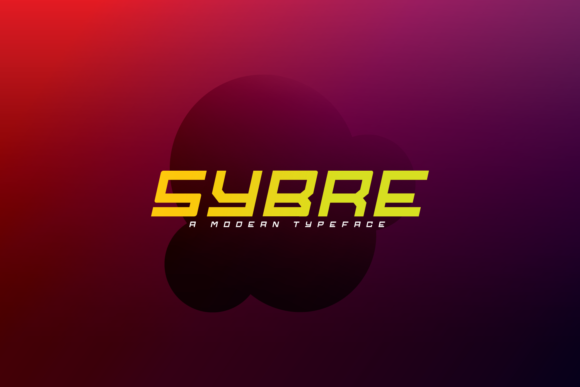
Unleash the Power of Sybre: The Font That Commands Attention and Inspires Creativity
In a world saturated with visual noise, it's the captivating fonts that truly stand out, leaving an indelible mark on the minds of users. Introducing Sybre, the game-changing display font meticulously crafted by Line Creative, designed to ignite your designs with boldness, confidence, and a touch of intrigue.
Sybre is not just a font; it's a statement. Its robust and assertive characters exude a commanding presence, demanding attention and leaving no room for indifference. Whether you're a seasoned designer or just starting your font exploration, Sybre is the key to unlocking your creative potential and taking your designs to new heights.
Picture this: a modern logo that leaps off the page, a poster that captivates audiences with its bold messaging, or a social media campaign that resonates with your target audience. Sybre is the secret ingredient that transforms ordinary designs into extraordinary experiences. Its versatility extends beyond logos and branding, seamlessly adapting to flyers, posters, headlines, social media graphics, and any other project that demands a touch of visual charisma.
With Sybre at your disposal, you'll discover a new level of creative freedom. Its inherent flexibility allows you to manipulate letterforms, adjust spacing, and experiment with different colors, ensuring that your designs reflect your unique style and vision. Whether you're aiming for a sleek and sophisticated look or a more playful and whimsical vibe, Sybre has the versatility to accommodate your every desire.